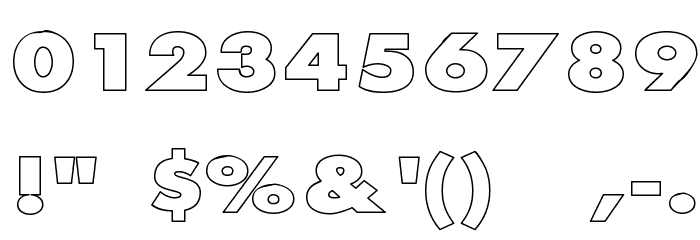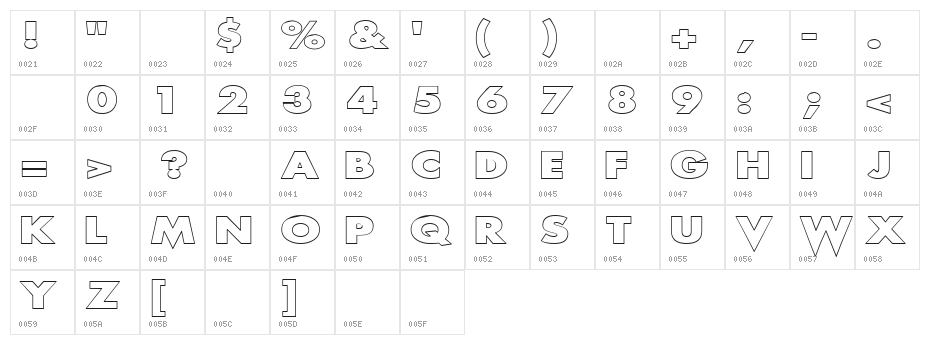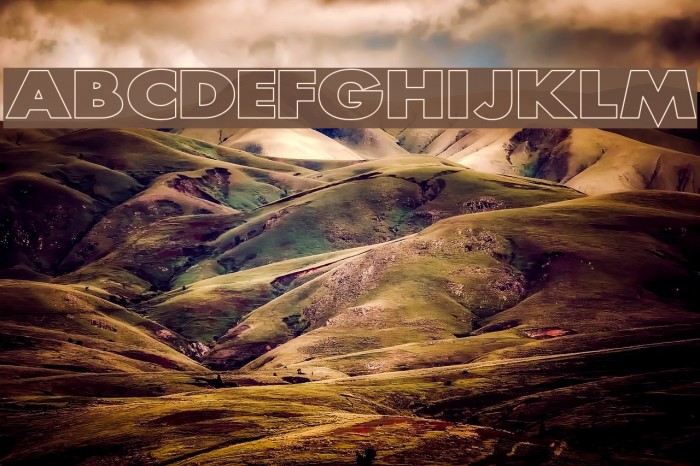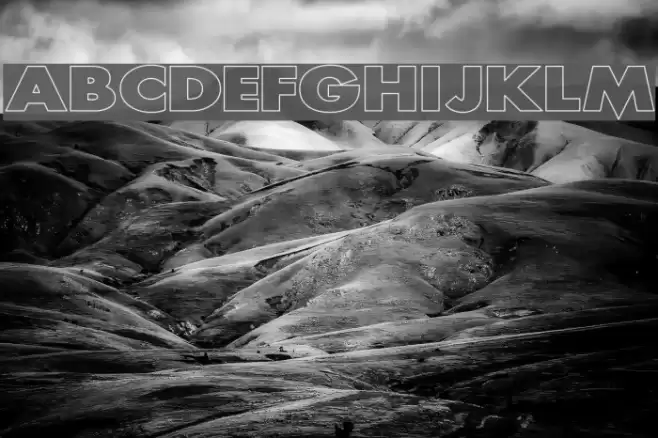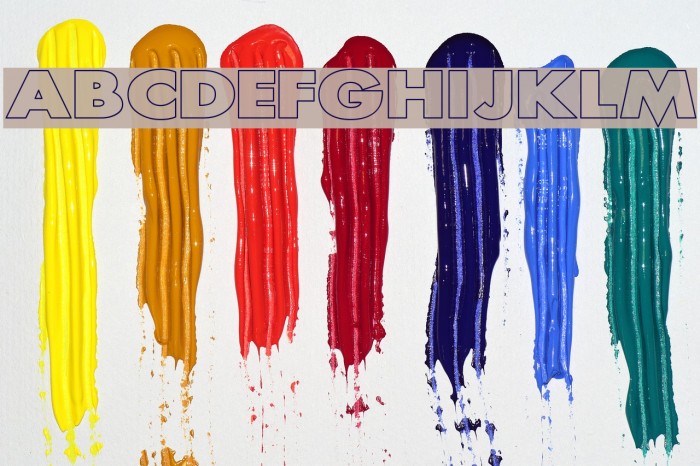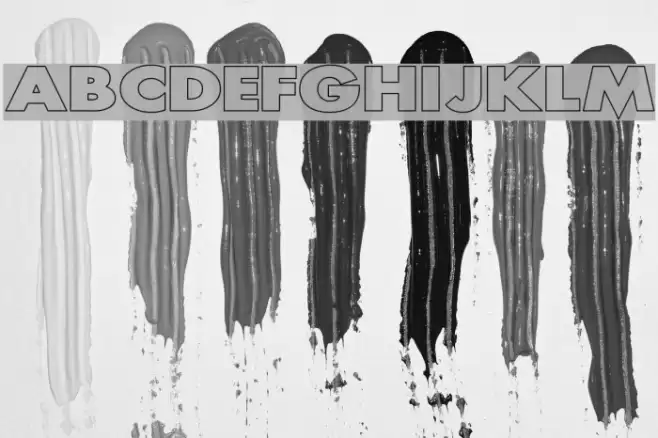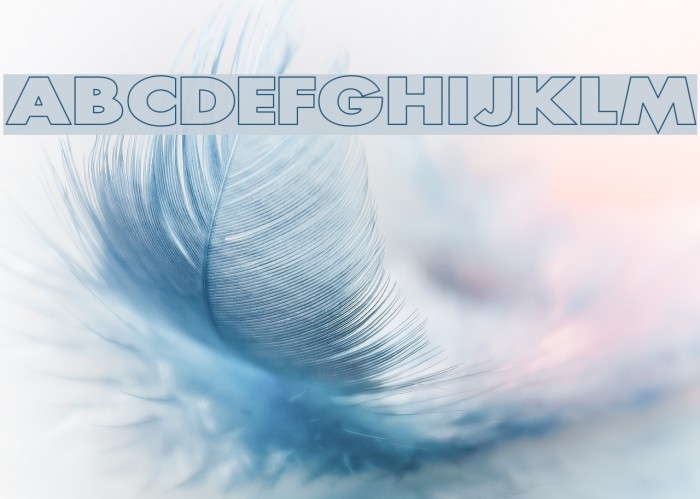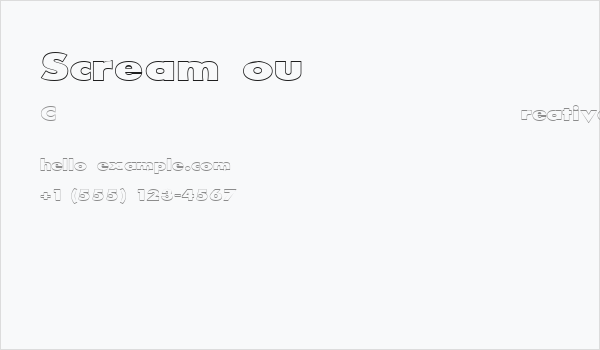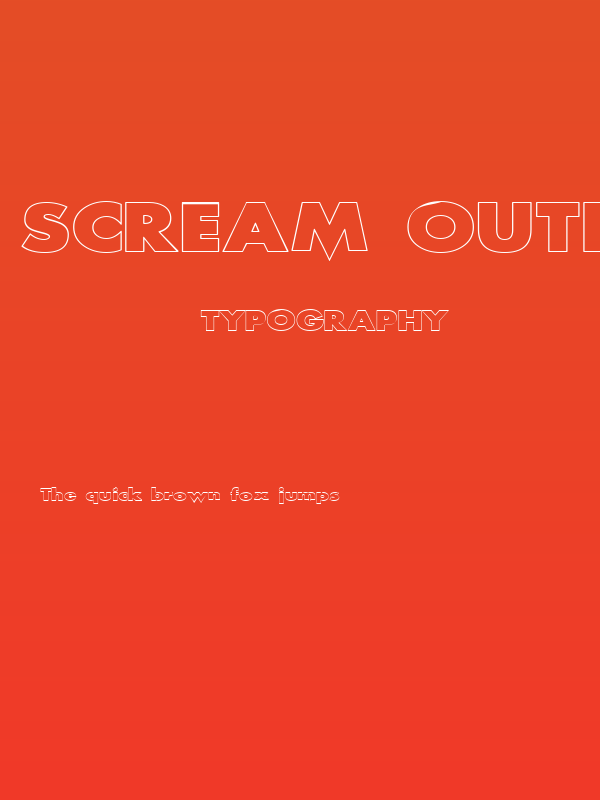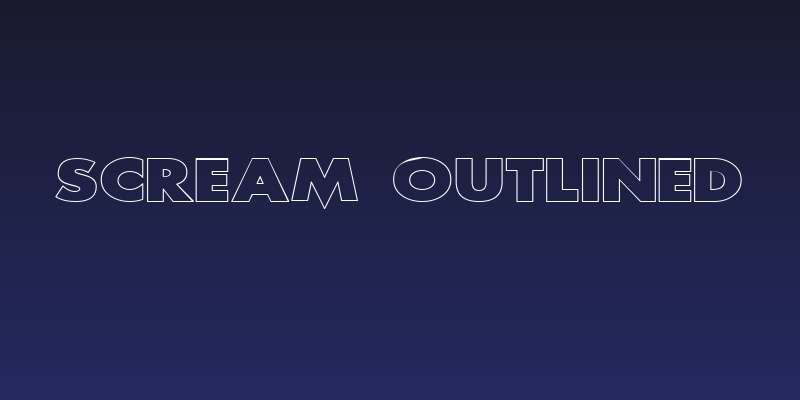
Scream outlined Font
Scream outlined Description
This font features bold, uppercase and lowercase letters with a distinct outlined style that gives it a striking and modern appearance. The characters are evenly spaced, maintaining a clean and structured look. The numbers and special characters follow the same outlined design, ensuring consistency across all elements. This font's boldness and clarity make it suitable for attention-grabbing headlines and titles. Its outlined nature adds a unique flair, making it ideal for creative projects where a strong visual impact is desired.